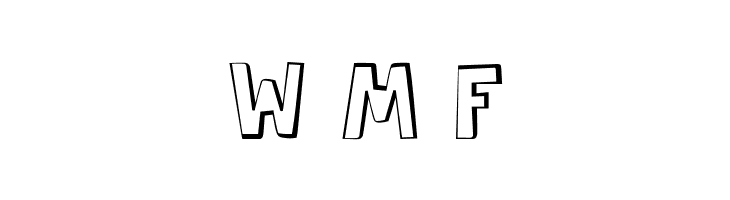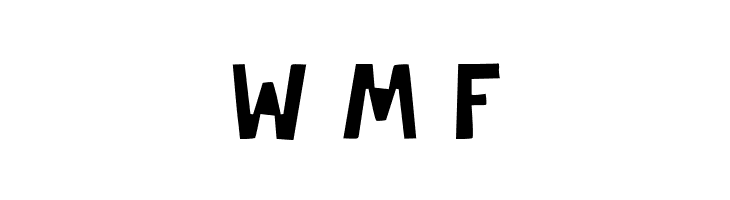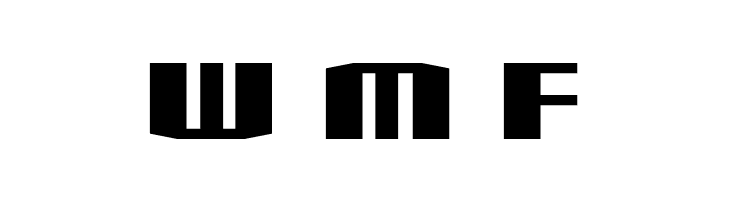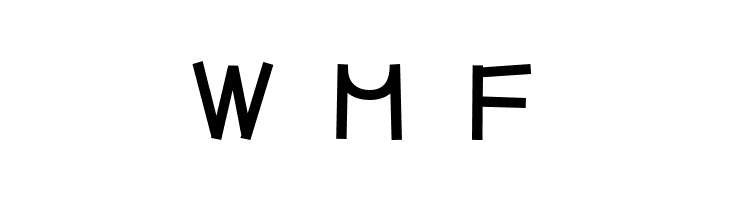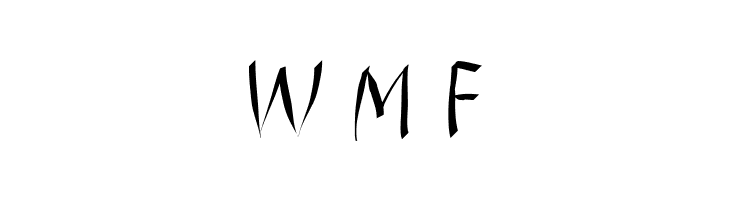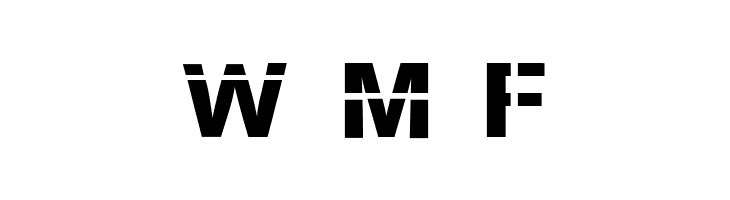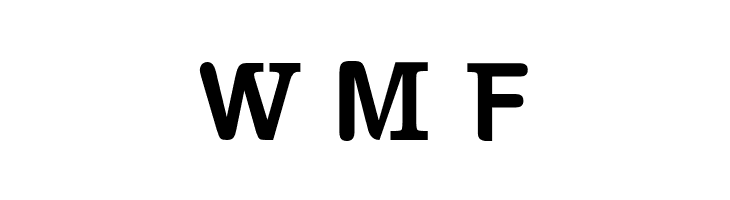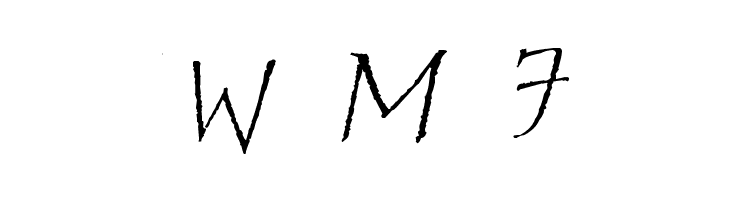
• SaiGon
A dynamic, angular font with a calligraphic influence and high contrast strokes.
• Sakucho Black
A bold, geometric font with a modern and industrial style.
• SAKURAalp
A playful, modern font with rounded, bold characters.
• Sala de Fiestas
A bold, playful font with medium contrast and a slightly condensed style.
• Sala de Fiestas Out
A playful, bold outline font with uniform letterforms and a striking visual impact.
• SAMBAHOLLYC
A bold, playful font with rounded edges and a vintage flair.
• Sandals
A dynamic, handwritten-style font with fluid strokes and artistic flair.
• SansKleinCut
A bold, geometric font with unique cut-out elements for a modern, edgy look.
• SansSerifVarying-Black
A bold, sans-serif font with thick, uniform strokes and strong visual impact.
• Sayso Chic